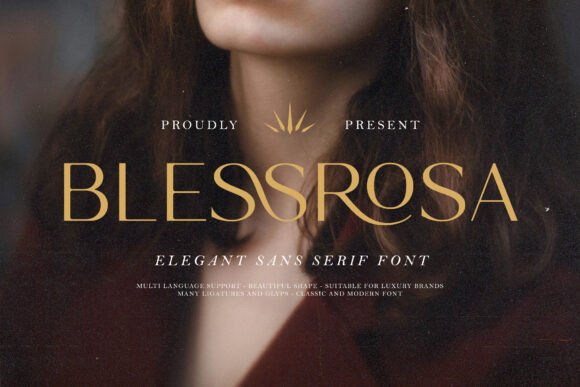
The Elegance of Blessrosa Font: A Designer’s New Best Friend
I still remember the last time I was working on a luxury branding project, and I was on the hunt for the perfect font. My client wanted something that exuded elegance, sophistication, and a touch of modernity. I scoured the internet, tried out countless fonts, but nothing seemed to fit the bill. That was until I stumbled upon Blessrosa Font. ✨
As soon as I laid eyes on it, I knew I had found the one. Its clean lines, refined design, and royal yet beautiful style made it an instant winner. In this article, I’ll share my experience with Blessrosa Font, its features, and how to make the most of it in your designs.
What Makes Blessrosa Font Special?
Blessrosa is an elegant luxury sans serif font that combines the best of both worlds: clean lines and a refined, graceful design. Its versatility makes it perfect for a wide range of projects, including:
• High-end branding
• Beauty product packaging
• Luxury fashion editorials
• Minimalist logos
• Wedding invitations
• Chic social media content
• Advertising campaigns
• ✅ Elegant and refined design
• ✨ Perfect for luxury branding and high-end projects
• ✅ Comprehensive set of uppercase and lowercase letters, punctuation, numerals, and ligatures
• 🌎 Multilingual support for global communication
⚠️ While Blessrosa Font is incredibly versatile, it may not be the best choice for very playful or casual projects. Its elegant design might get lost in more laid-back contexts. 🤔
The Story Behind Blessrosa Font
Blessrosa Font was designed with the intention of creating a luxurious and elegant sans serif font that would cater to the needs of creatives and professionals. Its designer aimed to craft a font that would exude sophistication and refinement, while also being versatile enough to be used in a wide range of projects.
Q: What type of projects is Blessrosa Font best suited for?
A: Blessrosa Font is perfect for high-end branding, luxury fashion editorials, beauty product packaging, minimalist logos, wedding invitations, and chic social media content.
Q: Does Blessrosa Font support multilingual communication?
A: Yes, Blessrosa Font comes with multilingual support, making it an excellent choice for global brands and projects.
Q: Is Blessrosa Font suitable for body text?
A: While Blessrosa Font is elegant and refined, it’s best suited for headlines and titles. For body text, you may want to choose a more readable font.